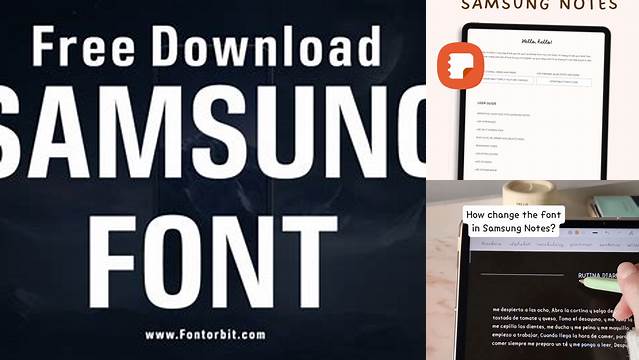
Best Fonts For Samsung Notes: Enhance Your Note-Taking
Choosing the right fonts can significantly improve your note-taking experience on Samsung Notes. A good font can make your notes more readable, organized, and even more enjoyable to review. Let's dive into how you can pick the best fonts for your Samsung Notes and make the most out of this fantastic app.
1. Understanding Font Compatibility in Samsung Notes
Before we jump into specific fonts, it's crucial to understand how Samsung Notes handles fonts. Samsung Notes primarily uses system fonts, which means the fonts available on your device are the ones you can use in the app. However, you can also import custom fonts to expand your options. Knowing this helps you plan better and ensures you pick fonts that are actually usable within the app. So, before anything else, make sure you have a handle on what fonts Samsung Notes can actually work with, guys. This will save you a lot of headache later on!
2. Exploring Default Font Options on Samsung Notes
Samsung Notes comes with a range of default fonts that cater to various tastes and needs. These fonts are pre-installed on your device and readily available for use. While the selection might not be extensive, it includes some reliable and readable options. Taking the time to explore these default fonts can reveal some hidden gems that you might find perfectly suitable for your note-taking style. Plus, using default fonts ensures maximum compatibility and avoids any potential issues with custom fonts. Default fonts are a solid starting point for anyone new to Samsung Notes or those who prefer simplicity.
4. Best Serif Fonts for Samsung Notes
Serif fonts are characterized by the small decorative strokes (or serifs) at the end of each character. They are often considered more traditional and are great for creating a formal or classic look in your notes. Some popular serif fonts that work well with Samsung Notes include Times New Roman, Georgia, and Book Antiqua. These fonts offer excellent readability, especially for long passages of text, making them ideal for detailed notes or essays. If you're aiming for a polished and professional feel, serif fonts are definitely worth exploring. Trust me, guys, your notes will look super sophisticated!
5. Top Sans-Serif Fonts for Note-Taking on Samsung
Sans-serif fonts, on the other hand, lack those decorative strokes, giving them a cleaner and more modern appearance. They are often preferred for digital screens due to their enhanced readability. Popular sans-serif fonts for Samsung Notes include Arial, Helvetica, and Open Sans. These fonts are versatile and work well for various types of notes, from quick bullet points to more extensive text. Their simplicity and clarity make them a great choice for anyone who wants a straightforward and easy-to-read note-taking experience. Plus, they look great on the screen!
6. Monospace Fonts for Coding Notes in Samsung Notes
For those who use Samsung Notes for coding or technical documentation, monospace fonts are a must-have. Monospace fonts have characters that each take up the same amount of horizontal space, which is essential for aligning code and creating a visually consistent layout. Courier New and Consolas are excellent monospace fonts that are widely supported and easy to read. Using monospace fonts ensures that your code snippets and technical notes are clear, organized, and easy to understand. It's a game-changer for coding on the go!
7. Handwriting Fonts for a Personal Touch
If you want to add a personal touch to your notes, consider using handwriting fonts. These fonts mimic the look of actual handwriting, giving your notes a unique and informal feel. There are many handwriting fonts available, ranging from neat and legible to more stylized and artistic. Just be sure to choose a font that is still easy to read, especially for important notes. Some popular options include Comic Sans (use with caution!), Kristen ITC, and Bradley Hand. Handwriting fonts can make your notes more engaging and enjoyable to create.
8. Font Size Adjustments for Optimal Readability
Choosing the right font size is just as important as selecting the font itself. A font that is too small can strain your eyes and make it difficult to read, while a font that is too large can take up too much space and make your notes look cluttered. Experiment with different font sizes within Samsung Notes to find the sweet spot that works best for you. Consider the screen size of your device and the typical distance you hold it from your eyes. Adjusting the font size can significantly improve your overall note-taking experience. Trust me, your eyes will thank you!
9. Color Considerations for Fonts in Samsung Notes
While the font itself is important, the color of the font can also impact readability and aesthetics. Samsung Notes allows you to customize the font color, so take advantage of this feature to create visually appealing and easy-to-read notes. Generally, it's best to stick to darker colors for the font and lighter colors for the background. Avoid using colors that are too similar, as this can make it difficult to distinguish the text from the background. Experiment with different color combinations to find what works best for you.
30. Future Trends in Font Technology and Note-Taking
The world of font technology is constantly evolving, with new fonts and techniques being developed all the time. Some future trends to watch for include: Variable fonts, which allow for dynamic font customization; AI-powered font design, which can generate fonts based on user input; and immersive font experiences, which integrate fonts with augmented reality and virtual reality. These trends have the potential to revolutionize the way we use fonts in note-taking and beyond. Staying informed about future trends can help you stay ahead of the curve and take advantage of new opportunities.